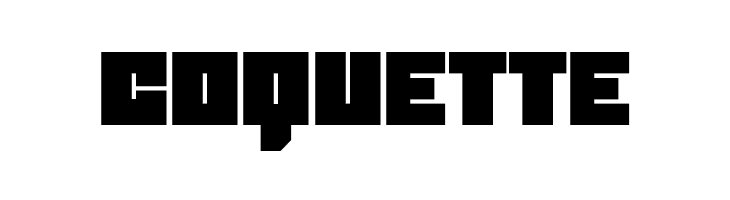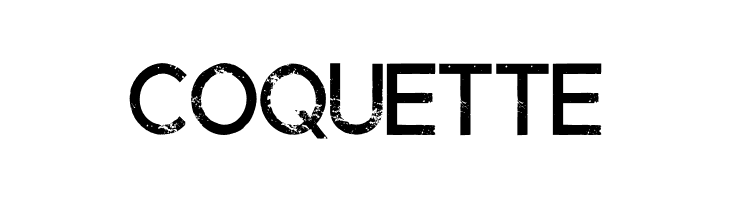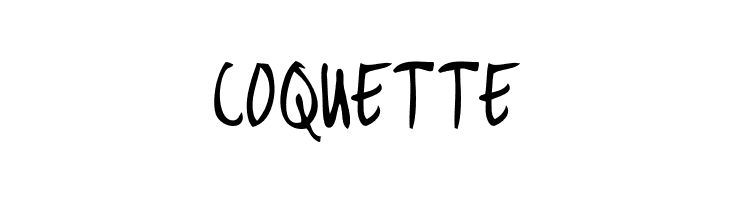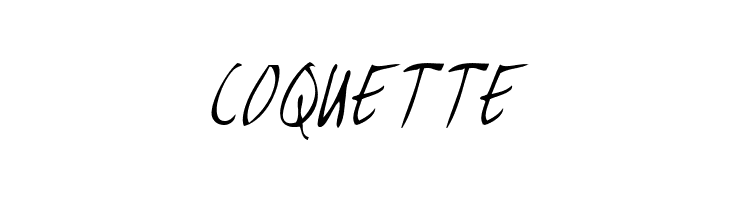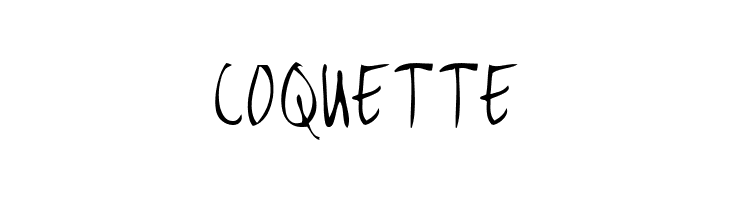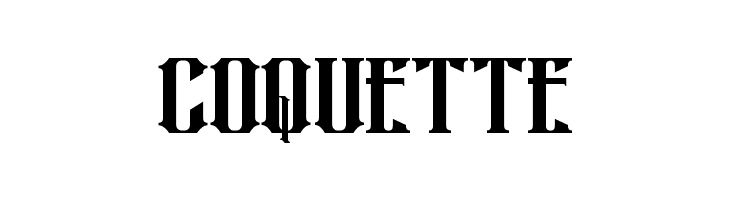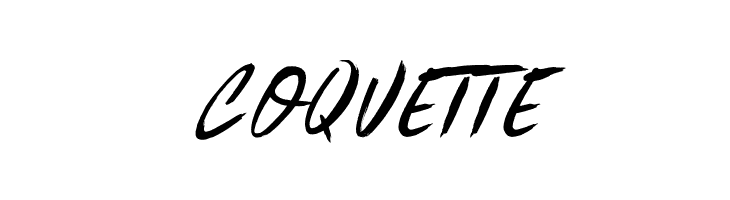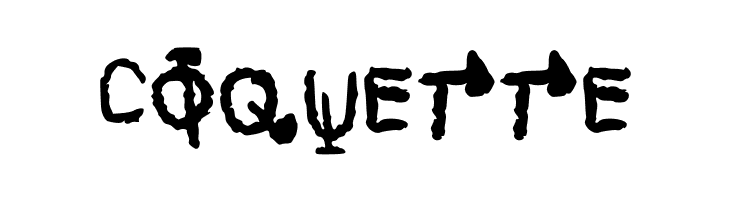
( Fonts by Roland Huse - rolandhuse.com )
A bold, hand-painted style font with a rustic and playful charm.
( Fonts by Andrew Hart - dirt2.com )
A distressed, grunge-style font with decorative swirls and splatters.
( Fonts by Andrew Hart - dirt2.com )
A grunge, distressed font with decorative elements and a bold, edgy style.
( Fonts by imagex )
A bold, distressed font with a rugged, vintage appearance.
A bold, distressed font with a grunge, industrial style.
( Jaye de Tunis - graffititoonsi.wordpress.com/ )
A bold, futuristic font with geometric and decorative elements.
( Fonts by Manuel Viergutz - Typo Graphic Design - www.typographicdesign.de )
A hand-drawn, ink-like font with a raw and organic feel.
( Philip Tronolone - www.clrprintplus.com )
A bold, expressive handwritten font with dynamic strokes and playful character.
( Fonts by Geronimo )
A bold, geometric font with a retro, disco-inspired design.
A bold, geometric font with a retro disco vibe.
A playful dot matrix font with a retro digital display vibe.
A bold, slanted font with a futuristic and dynamic style.
A bold, 3D futuristic font with geometric and angular design.
A bold, futuristic font with a three-dimensional outlined style and dynamic slant.
A bold, futuristic font with slanted, geometric characters.
A modern, condensed font with a dynamic, futuristic style.
A sleek, futuristic font with a dynamic slant and geometric shapes.
A bold, futuristic font with a striped gradient effect and slanted orientation.
A bold, futuristic font with a halftone effect and angular design.
A bold, left-leaning geometric font with a modern and dynamic style.
A bold, geometric outline font with a modern and futuristic style.
A dynamic, slanted font with a futuristic and geometric style.
A modern, semi-italic font with a bold, geometric style.
A geometric, futuristic font with straight lines and angular shapes.